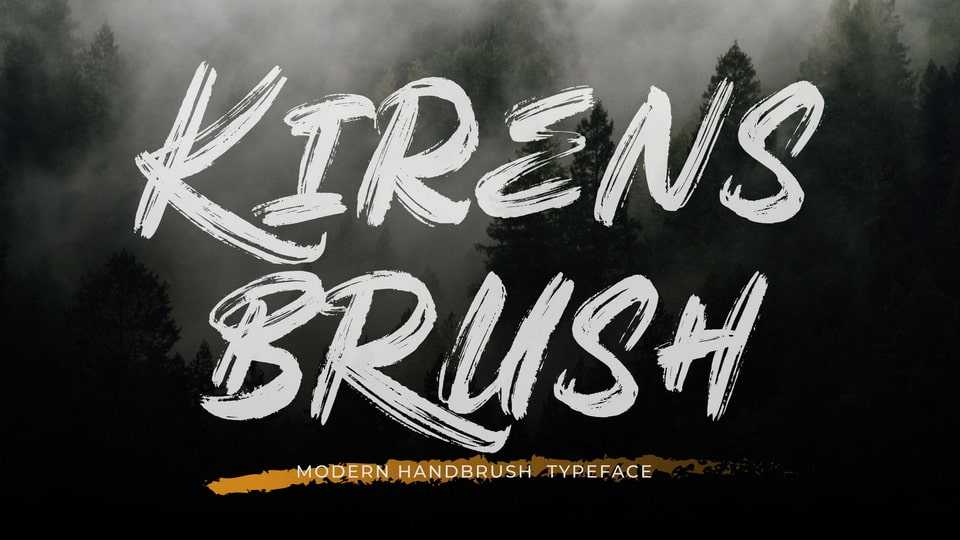
Download Kirens font, a brush typeface made in a modern, bold, classic and textured handwriting style, suitable for all your design needs that require display typeface to make your design appear bold and stylish.